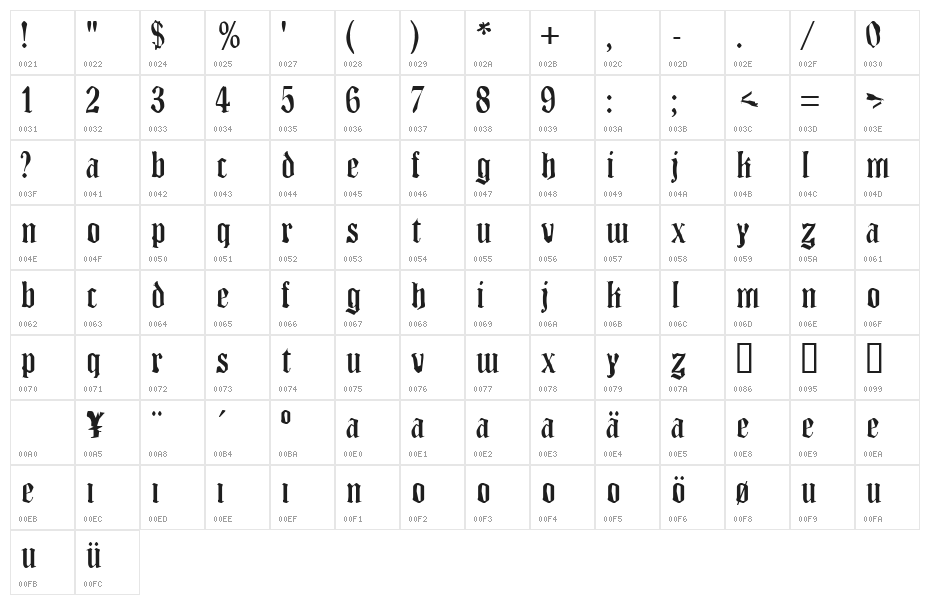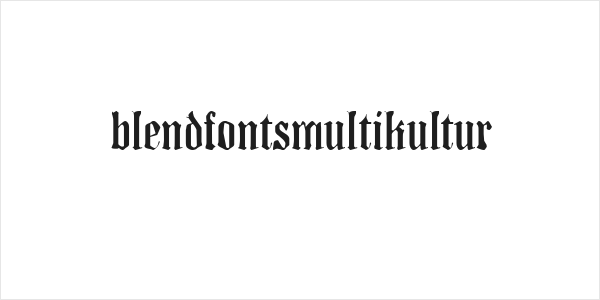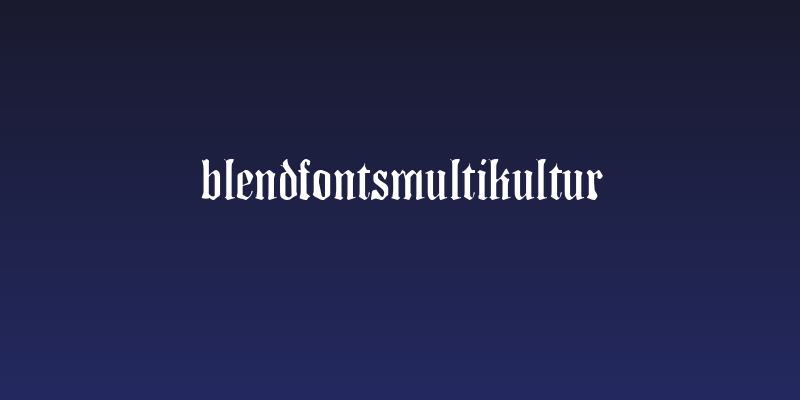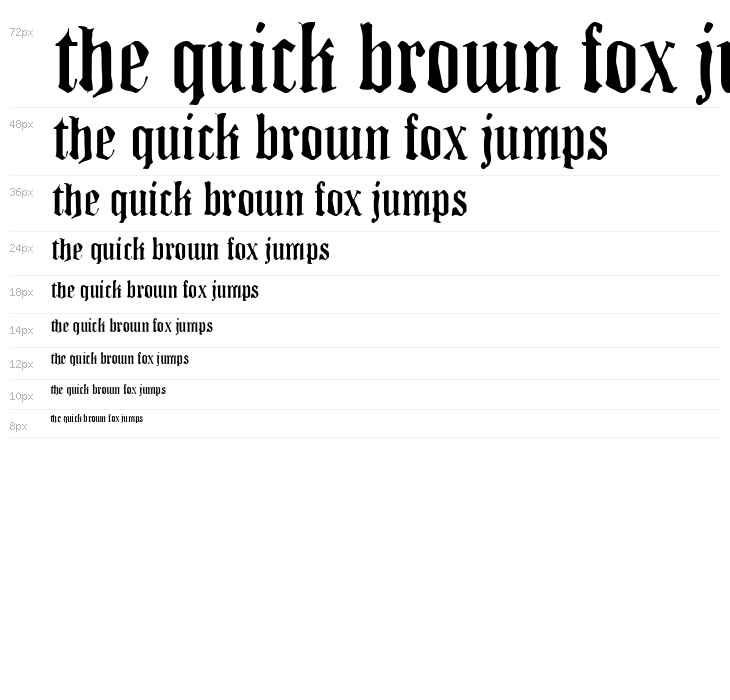
BlendfontsMultikultur Font
BlendfontsMultikultur Description
This font features a bold and dramatic blackletter style, characterized by its sharp, angular lines and intricate detailing. The uppercase and lowercase letters maintain a consistent gothic aesthetic, with pronounced serifs and a medieval flair. The numerals are equally stylized, offering a cohesive look across all characters. Special characters are designed to match the ornate style, making this font ideal for projects that require a historical or traditional touch. The overall appearance is both striking and elegant, suitable for creating a strong visual impact.
| Proposed Projects | Ideal for historical documents, vintage posters, book covers, and branding that requires a traditional or medieval touch. |